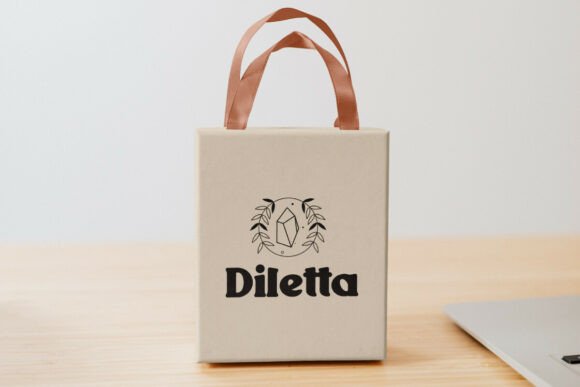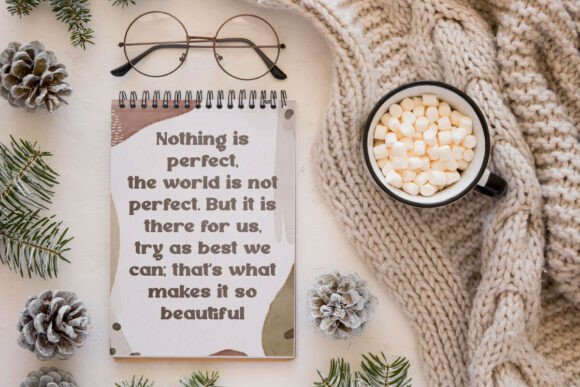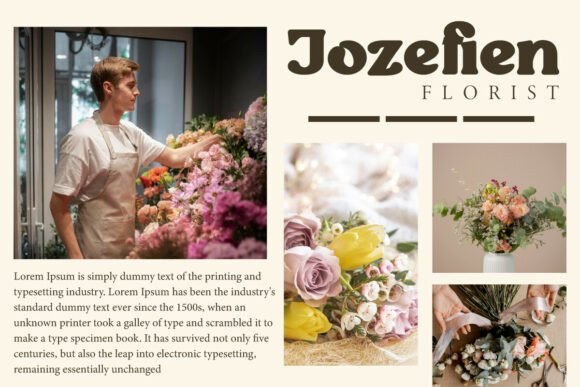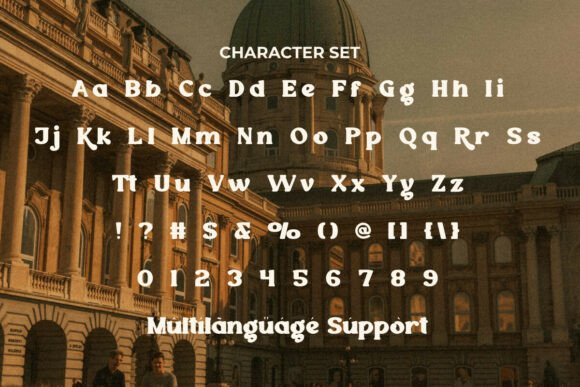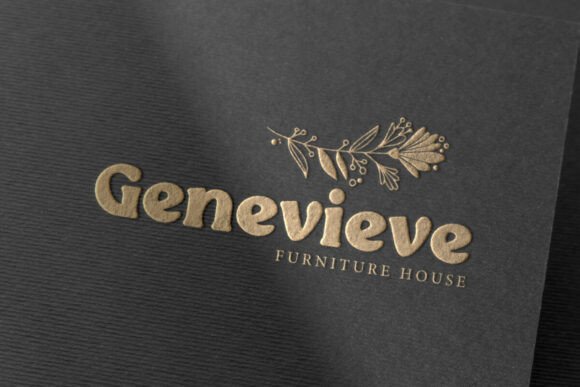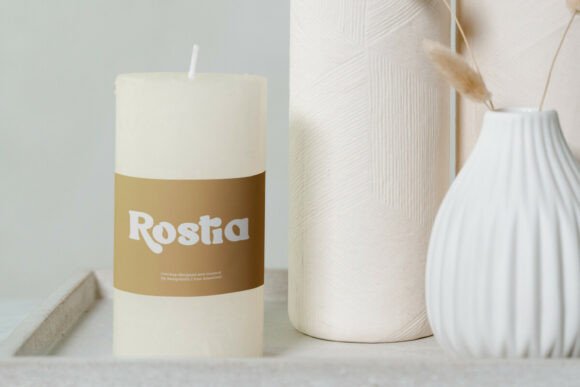
Introduction to Rostia Font
Rostia Font is a vintage serif display font created with a modern style by classic bold typeface and equipped with ligature characters that make this font more blended in a retro style.
Rostia font is a stunning โ€œmodern retroโ€ serif that captures the soul of 1970s editorial design while maintaining a sleek, 21st-century finish The Rostia typeface features emboldened serifs and groovy, flowing curves that make every letter feel alive.